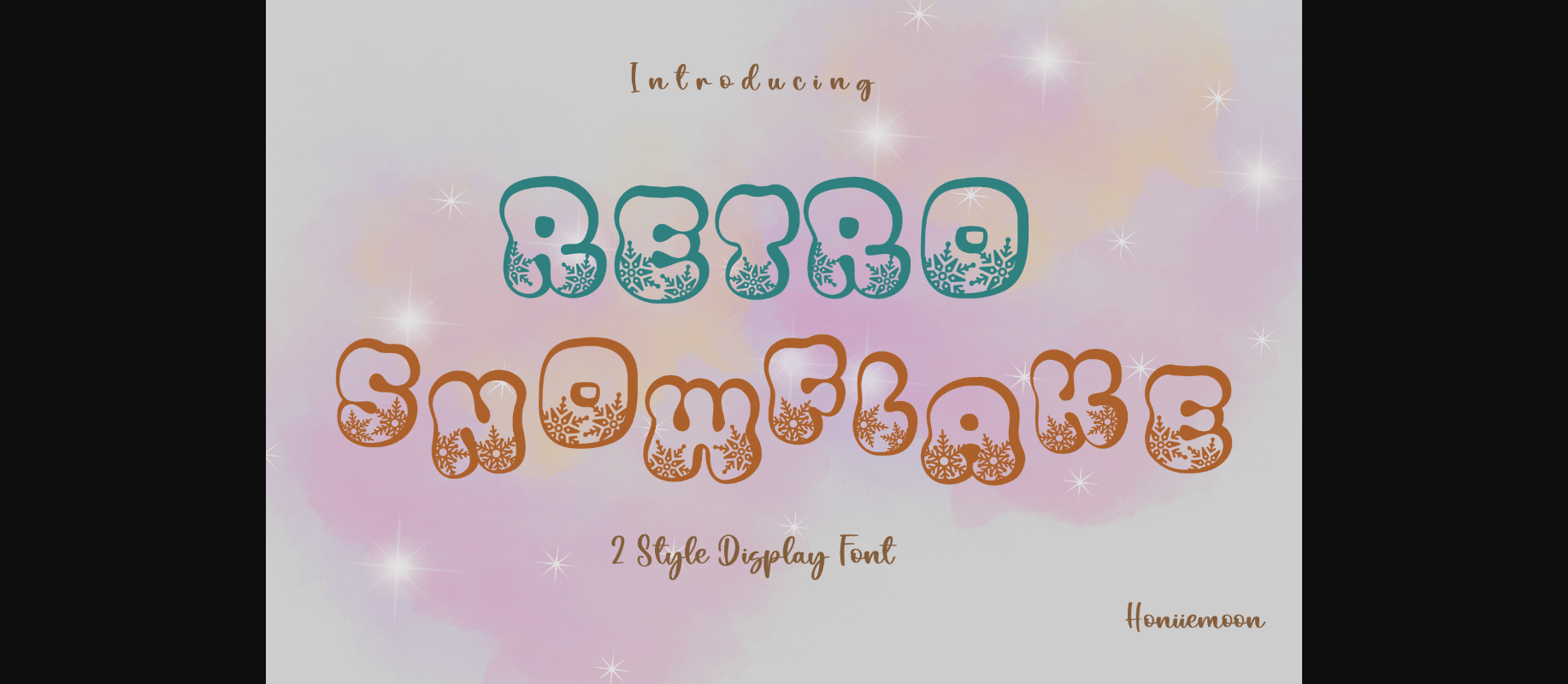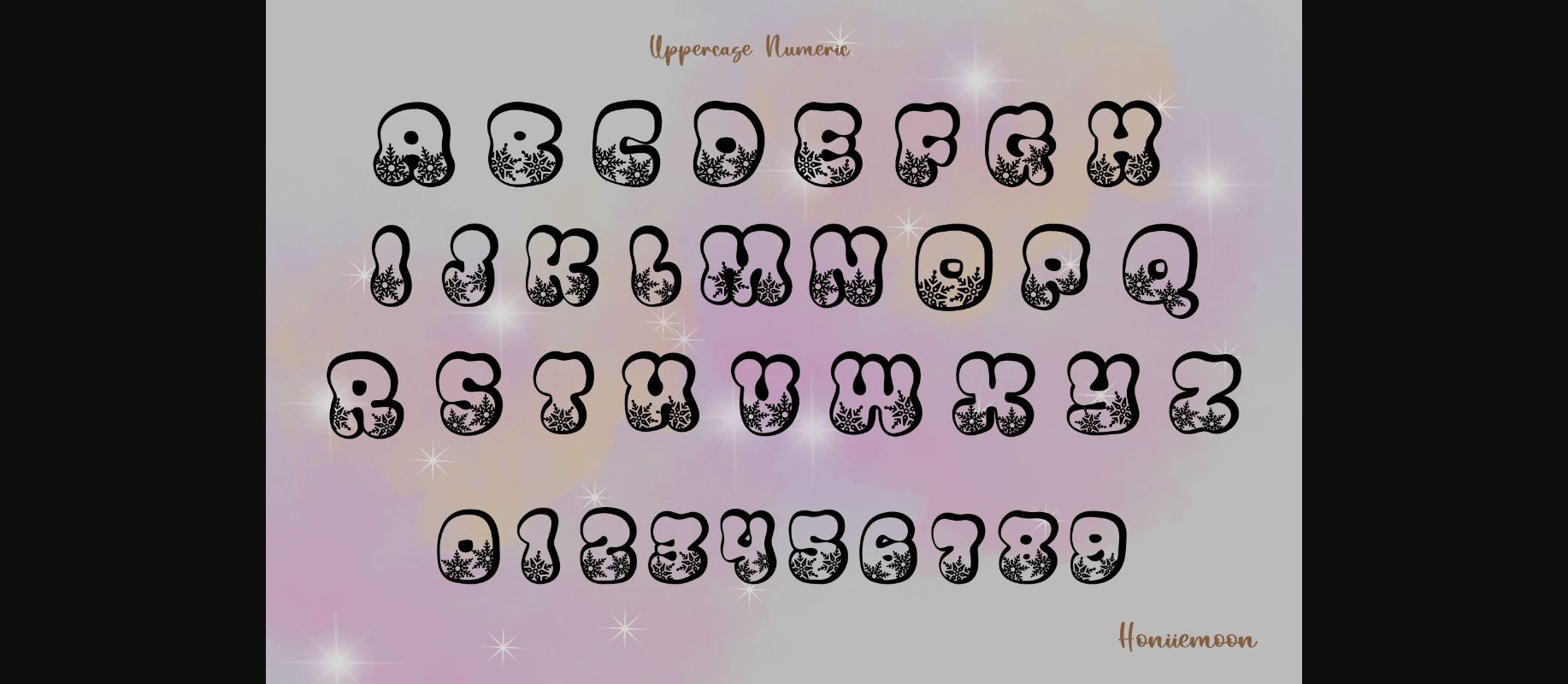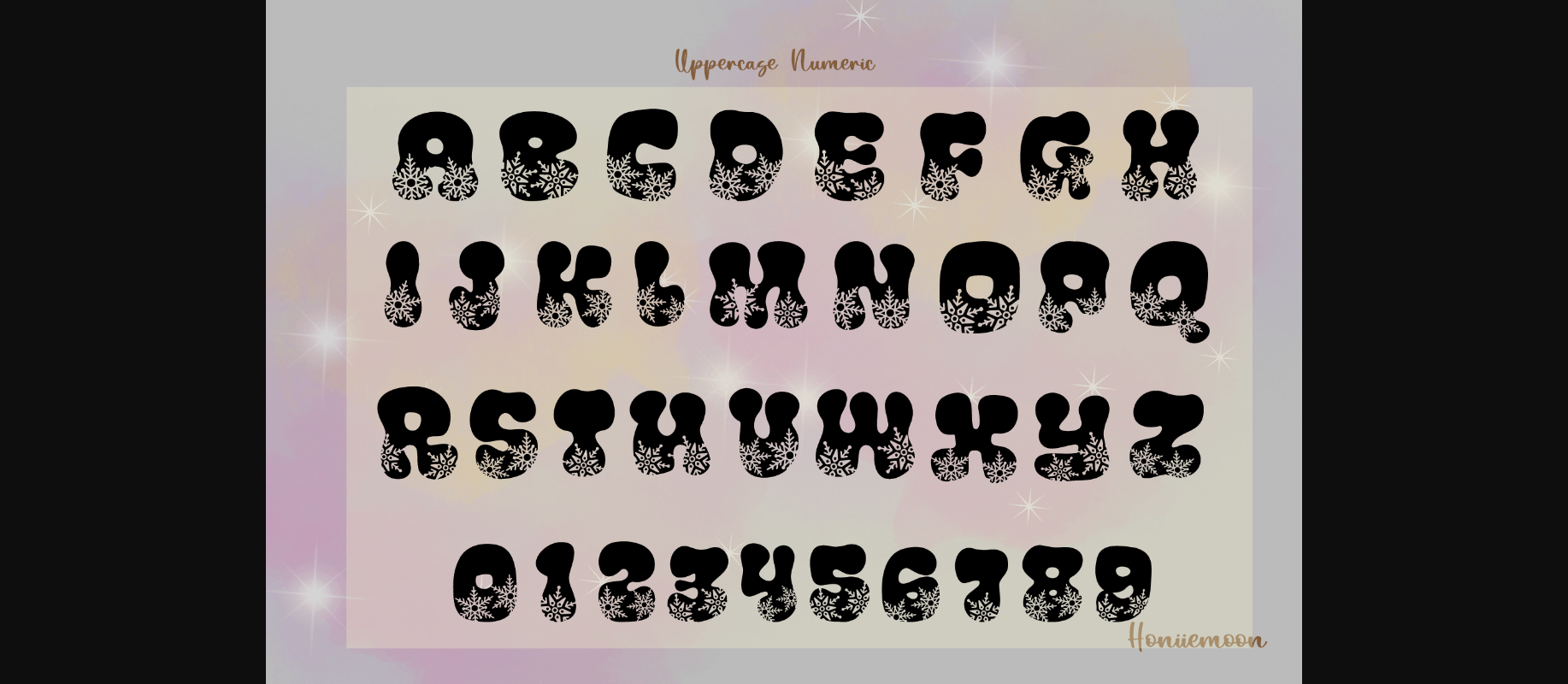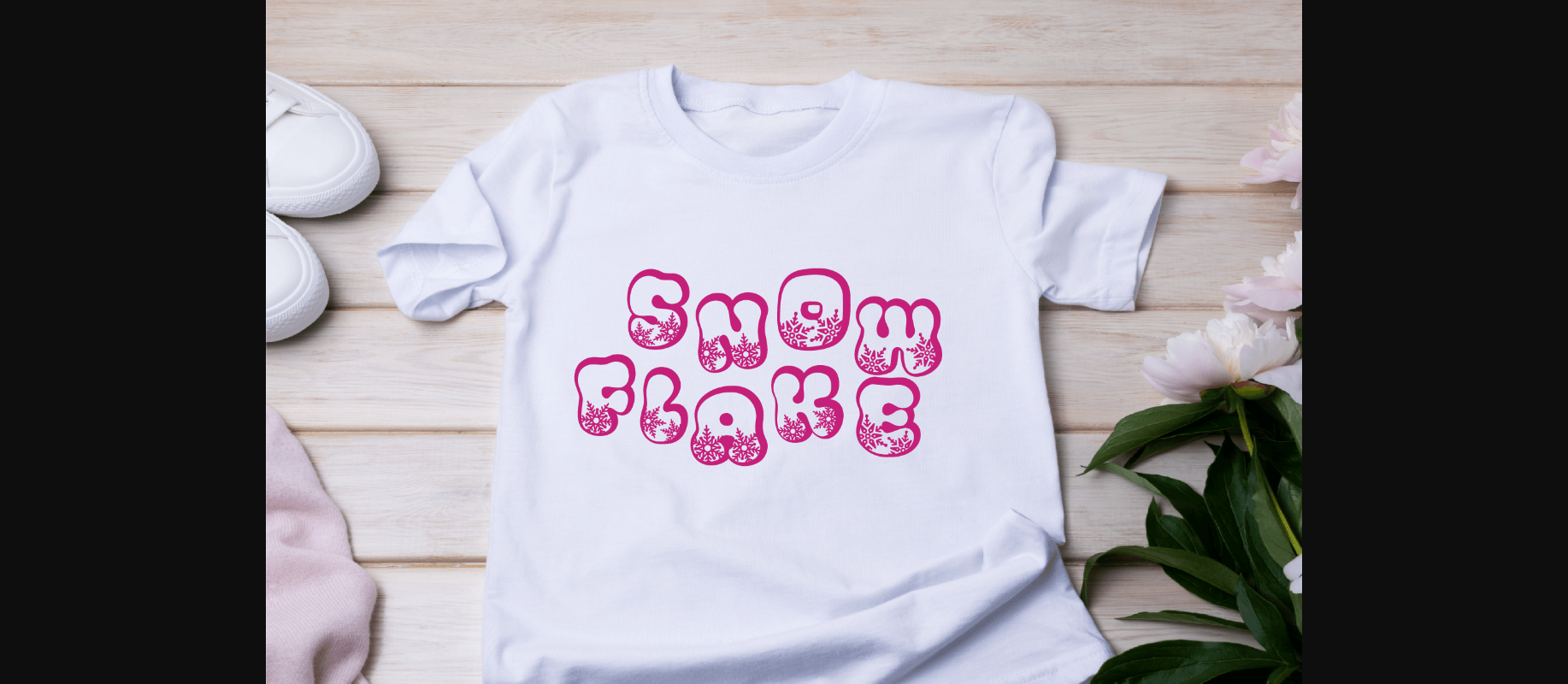
Retro Snowflake Font
About Retro Snowflake Font
Retro Snowflake is a cool and fun decorative font. It looks both cute and jolly and it will enhance each of your designs. The only limit is your imagination. Add this festive font to each of your creative ideas and notice how it makes them come alive!